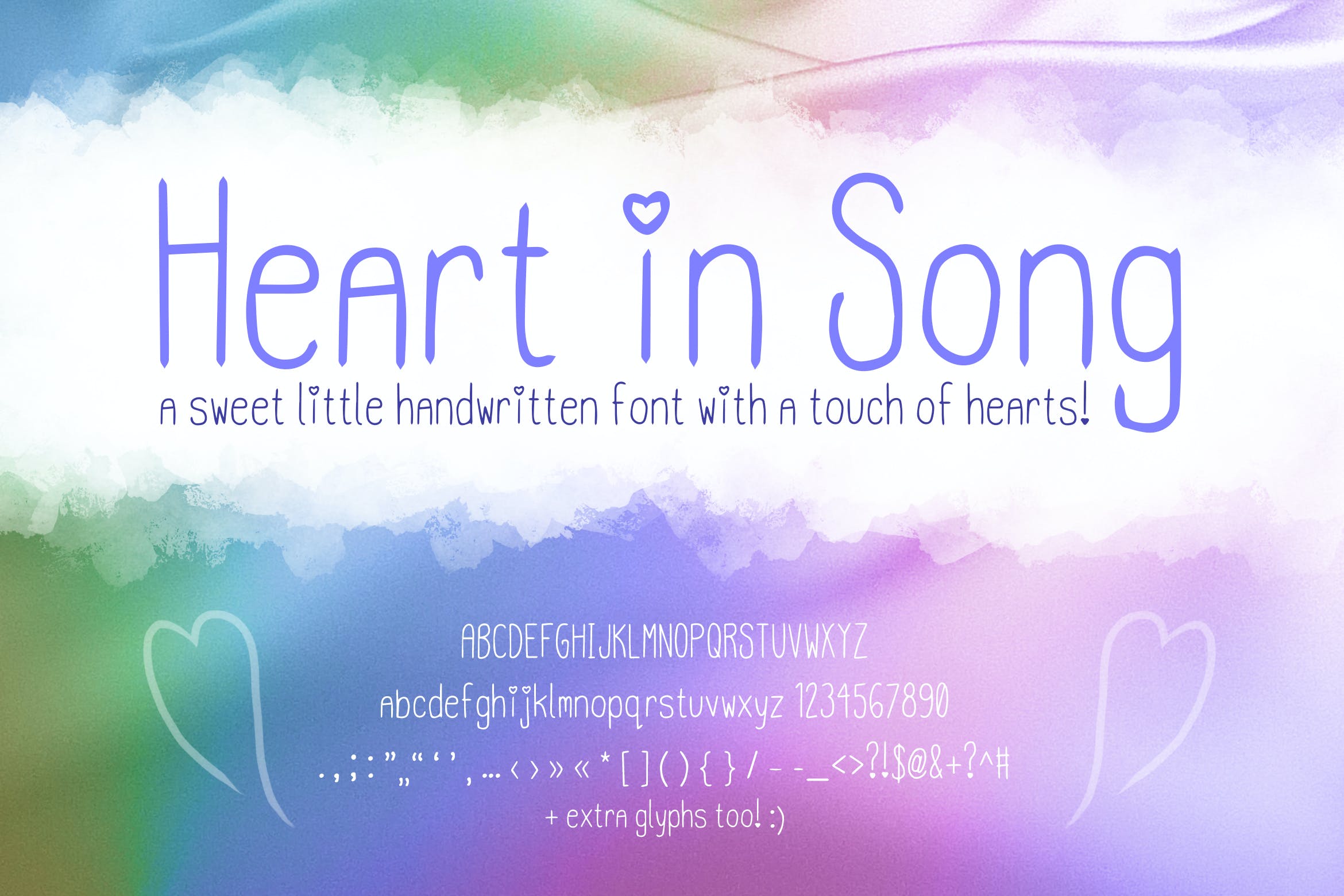
Introducing Heart in Song, a cute handwriting font!
There’s little hearts sprinkled in there for some extra cute handwritten touches. 🙂 It could work great as a Valentine’s Day font, for invitations, gift tags, and more!
Every letter was lovingly drawn by me. I was thinking about young love and the silly things I would write in my journal, as a little girl. Roses are red, violets are blue, I hope I go to the prom with you! 🙂